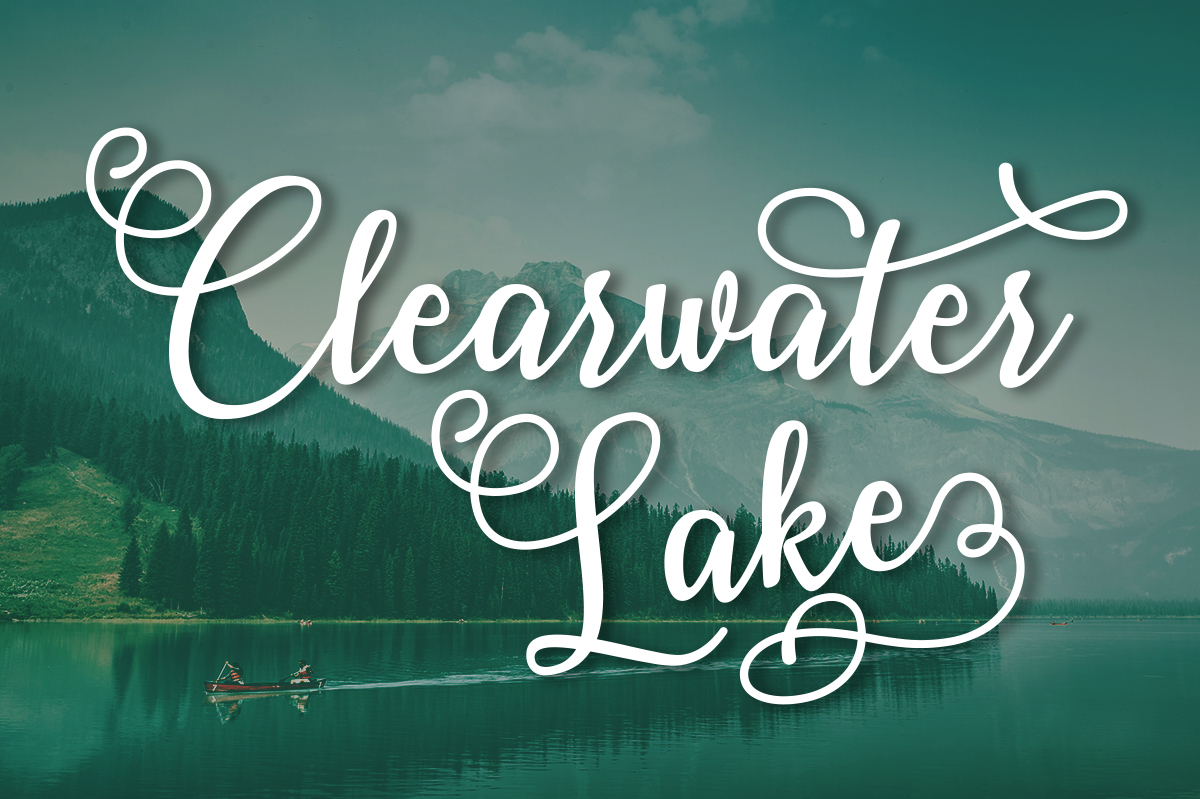
Clearwater Lake Font
About Clearwater Lake Font
Clearwater Lake is a beautiful and ornate script font, perfect for a wide range of designs. This stunning calligraphy font encompasses classic and contemporary approaches to script typography, and can give your designs a cohesive feel.